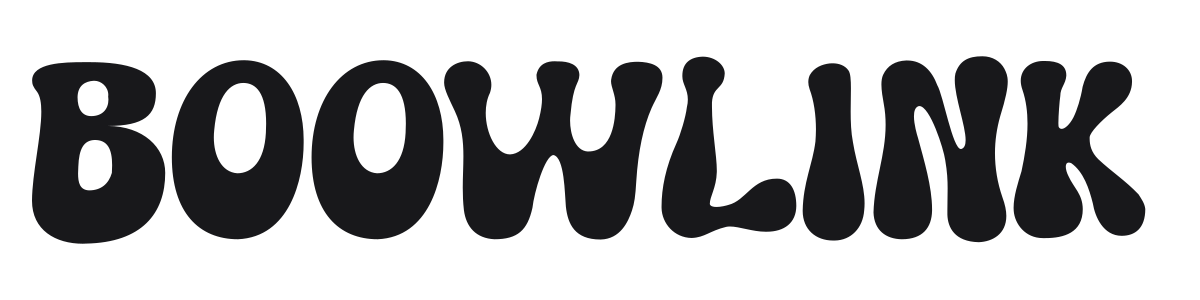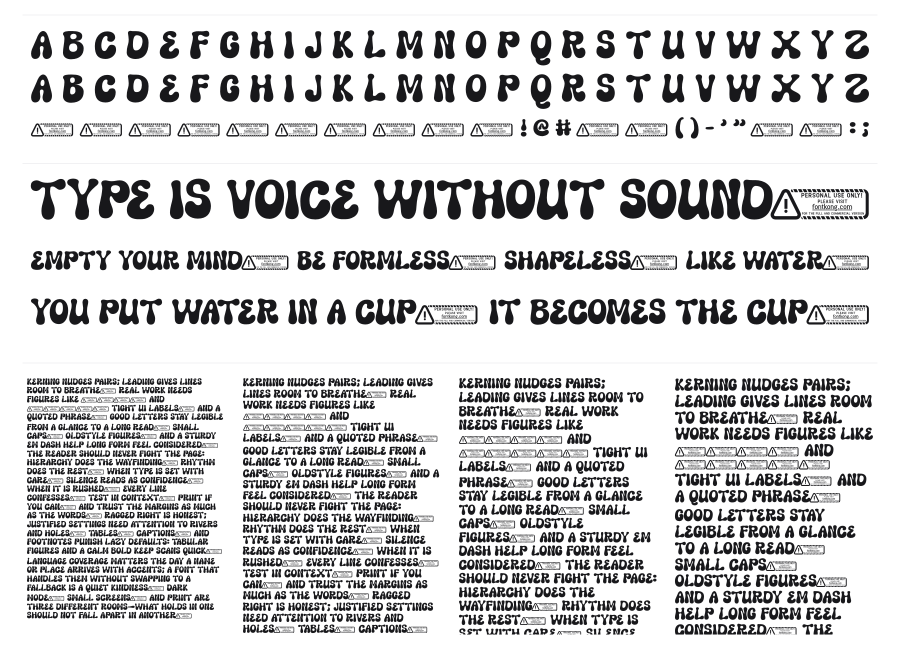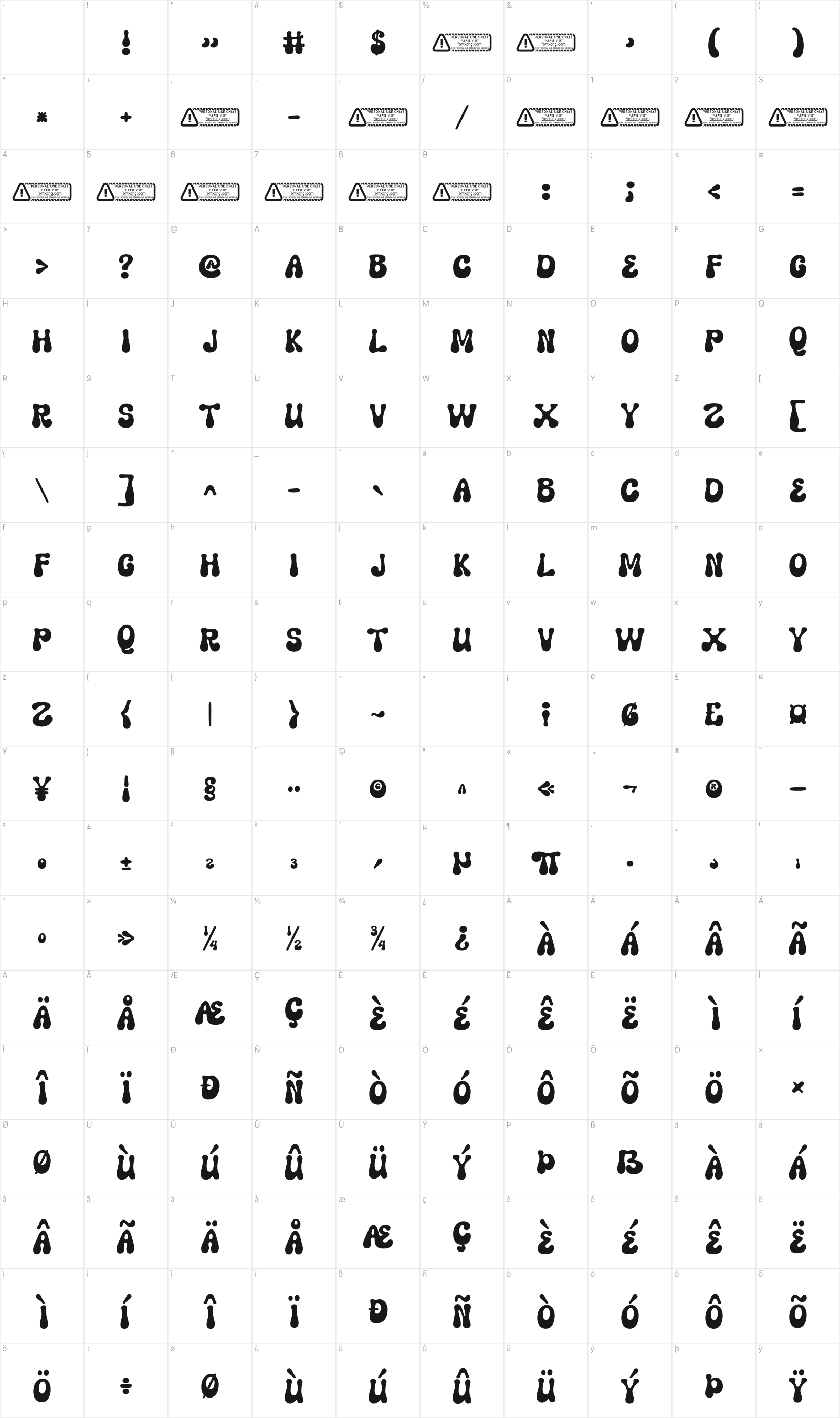
Boowlink
Boowlink is a heavy groovy display font soaked in 1960s-70s psychedelic energy, with massively inflated strokes that bubble and swell into each other. The near-zero stroke contrast and rounded blob terminals give it an unmistakably retro, fun personality. It works loudly at large sizes for posters, album covers, and branding that needs a vintage counterculture edge.